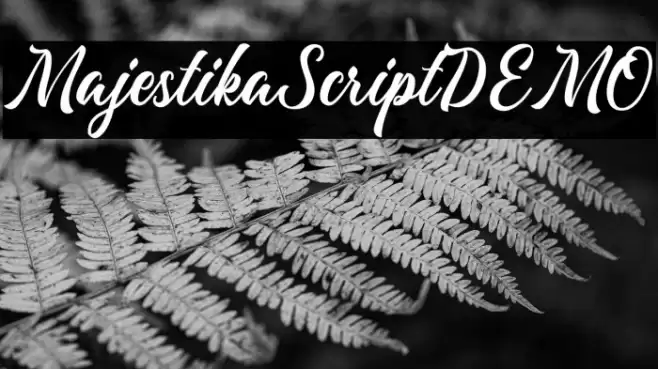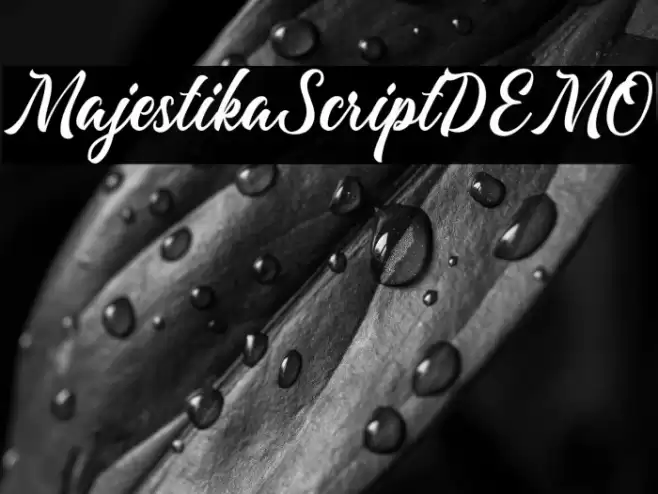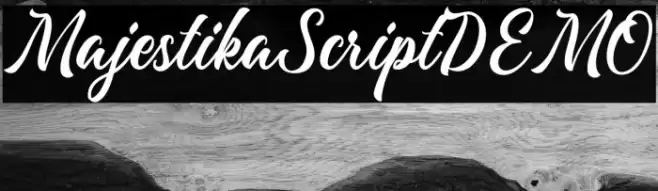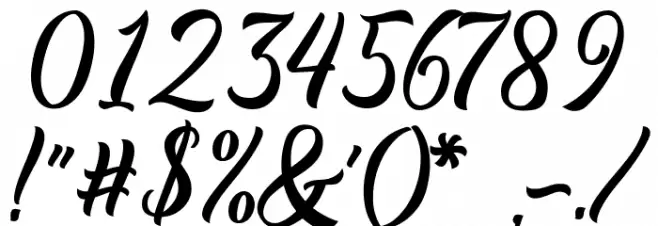
MajestikaScriptDEMO Font
MajestikaScriptDEMO Description
This font features a flowing, cursive style with elegant, sweeping strokes that give it a dynamic and lively appearance. The characters are interconnected, creating a sense of continuity and fluidity. The uppercase letters are bold and prominent, while the lowercase letters maintain a consistent flow, enhancing readability. The numerals and special characters are designed to match the script style, with similar curves and flourishes. This font exudes a sense of sophistication and charm, making it ideal for projects that require a touch of elegance.
A dynamic, cursive script font with elegant, flowing strokes from Regular fonts.
- Proposed Projects: Ideal for wedding invitations, greeting cards, branding, and elegant logo designs.
- Overall Style: Elegant, Decorative
- Use Case: Logos, Invitations, Decorative Text